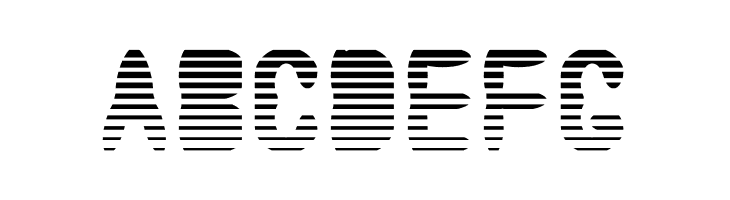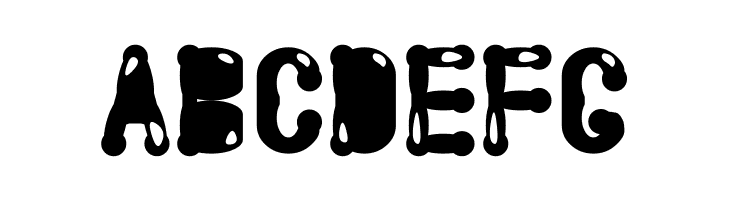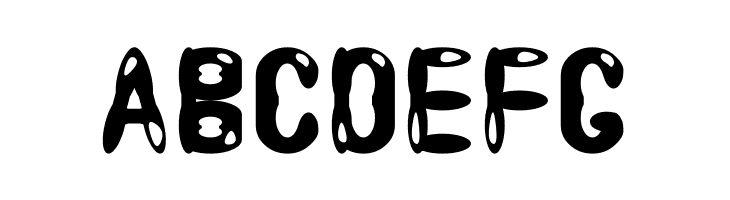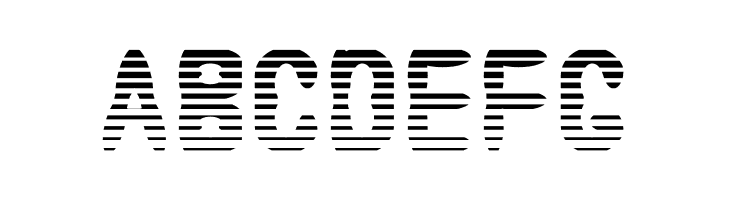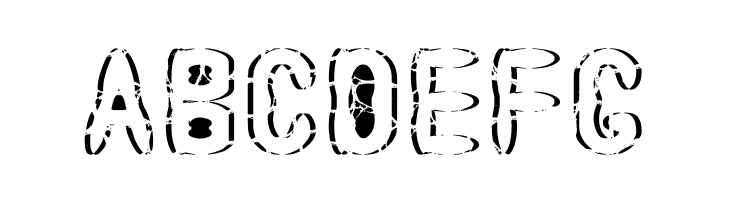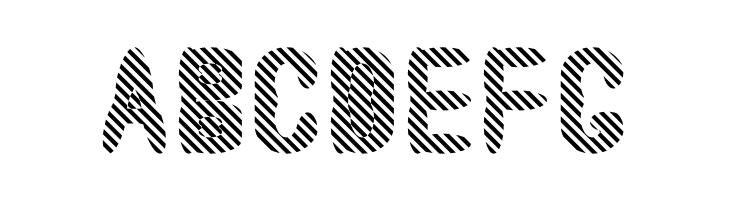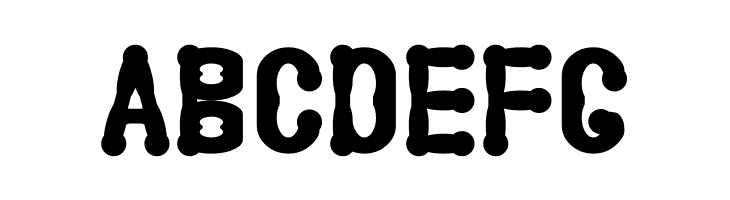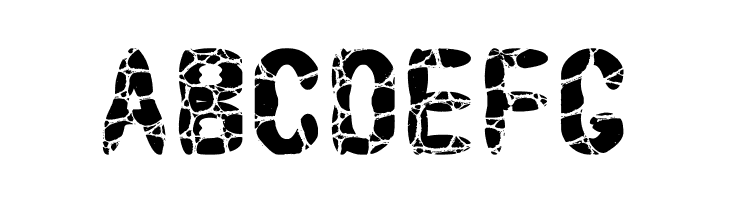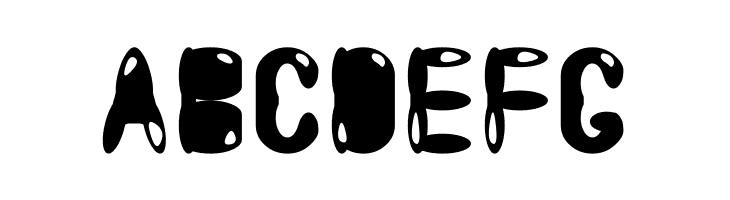
• Astakhov Access Degree ASFSerif
A decorative, hand-drawn style font with bold outlines and textured interiors.
• Astakhov Access Degree Chaos
A bold, chaotic font with irregular, hand-drawn shapes and varying thicknesses.
• Astakhov Access Degree DL
A bold, decorative font with diagonal stripes for a dynamic look.
• Astakhov Access Degree DL2
A modern, decorative font with diagonal stripes and bold geometric shapes.
• Astakhov Access Degree F
A bold, playful font with rounded, organic shapes and a hand-drawn feel.
• Astakhov Access Degree G
A bold, playful font with organic, blob-like shapes and a whimsical style.
• Astakhov Access Degree G Serif
A bold, playful font with a liquid-like, dynamic appearance.
• Astakhov Access Degree GF
A bold, playful font with organic, blob-like shapes and high contrast.
• Astakhov Access Degree GF Serif
A bold, playful font with an organic, liquid-like design.
• Astakhov Access Degree L
A modern, striped font with a digital, futuristic design.
• Astakhov Access Degree LF
A bold, striped font with a futuristic and digital aesthetic.
• Astakhov Access Degree S
A bold, outlined font with a playful, hollow design ideal for creative projects.
• Astakhov Access Degree S Sk
A bold, distressed stencil-style font with an industrial, rugged appearance.
• Astakhov Access Degree Serif
A bold, playful font with rounded edges and a whimsical style.
• Astakhov Access Degree Serif F
A bold, playful font with rounded edges and exaggerated serifs.
• Astakhov Access Degree Serif S
A decorative, hand-drawn style font with bold outlines and hollow interiors.
• Astakhov Access Degree Serif SF
A bold, playful font with a unique outlined, three-dimensional style.
• Astakhov Access Degree SF
A bold, wavy font with a liquid-like texture, perfect for dynamic designs.
• Astakhov Dished Glamour E
A bold, decorative font with fluid, wavy lines and high contrast strokes.